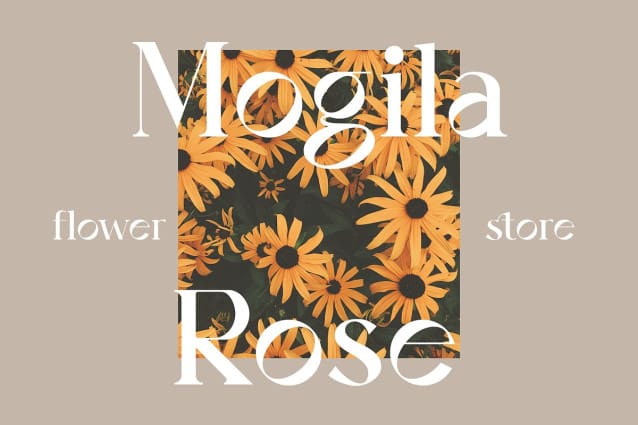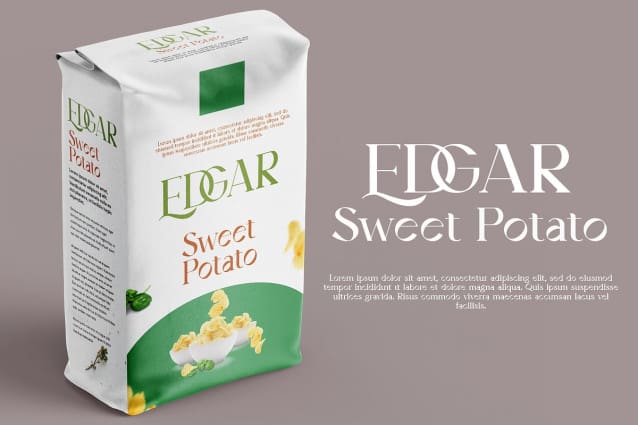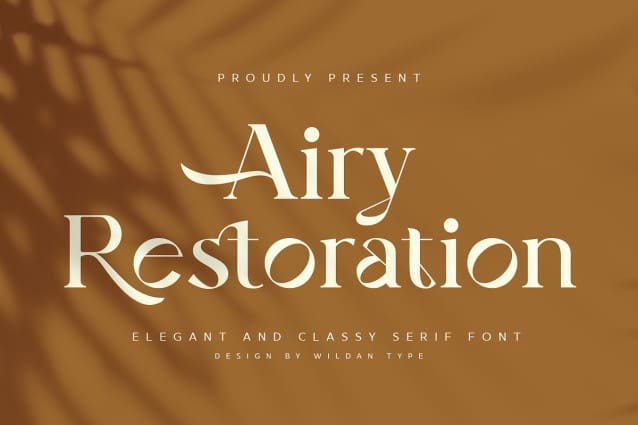
Airy Restoration Font
Airy Restoration Font, is a typeface designed by Wildan Suprian Syah. Born in the year 2022, With spirit in new era pasca pandemi of covid 19. This is stylish modern serif font. Contains uppercase & lowercase characters, all punctuation & numerals.
Airy Restoration is absolutely perfect for editorial projects, Logo design, Wedding, Clothing Branding, product packaging, magazine headers, or simply as a stylish text overlay to any background image.